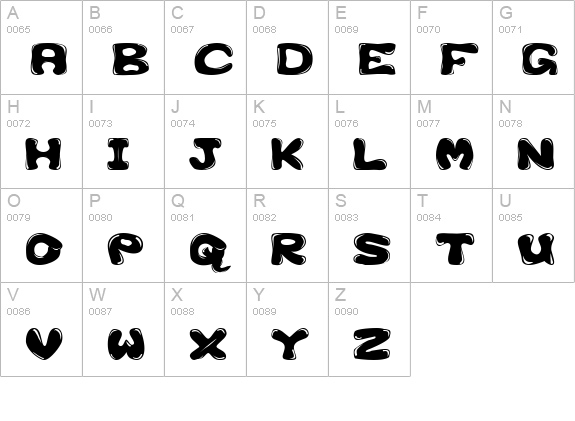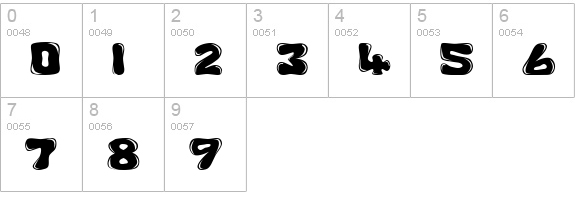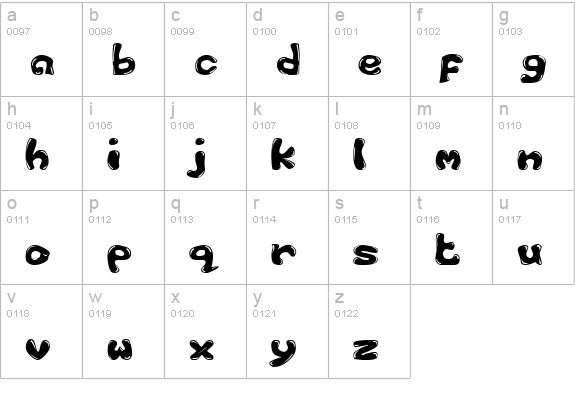
GFS-Custom Bubble 1 Font Details
GFS-Custom Bubble 1 font is a whimsical and playful typeface that is perfect for adding a touch of fun to your designs. This unique font features bubbly rounded characters that exude a sense of joy and creativity. Whether you are designing greeting cards, posters, or children's books, GFS-Custom Bubble 1 font will bring a smile to your audience's faces. The best part is that GFS-Custom Bubble 1 font is completely free to download at FontsMarket.com. You can easily access this delightful font and incorporate it into your projects without any cost. Embrace the cheerful vibe of GFS-Custom Bubble 1 font and let your creativity shine with this freely available typeface.